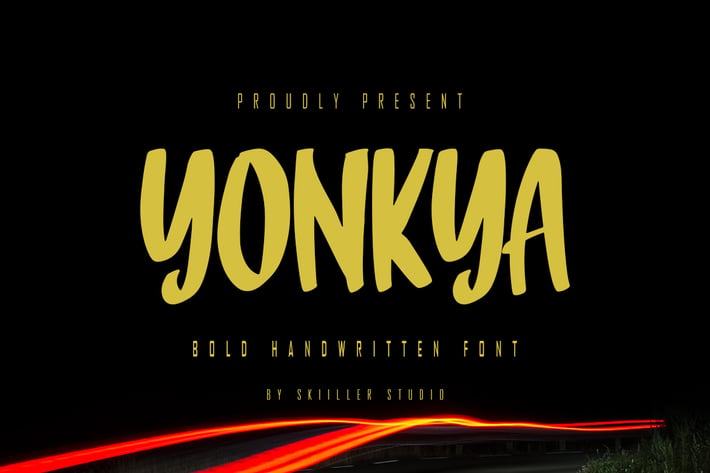
Yonkya - Bold Handwritten Font
Yonkya is a modern and brushed handwritten font, crafted to give your headlines and logotype projects a stylish touch. This font reads as strong, confident, and dynamic and can add tons of urban character to your designs.
+ Basic Latin Language Support (AÀÁÂÃÄÅCÇDÐEÈÉÊËIÌÍÎÏÑOØÒÓÔÕÖUÙÜÚÛWYÝŸÆß )